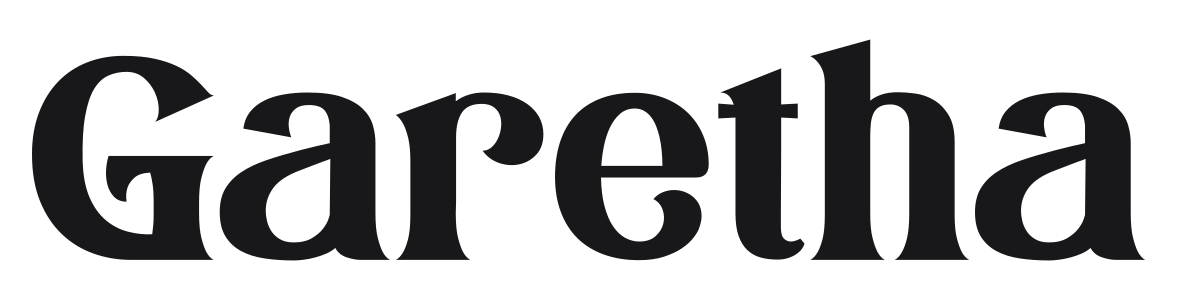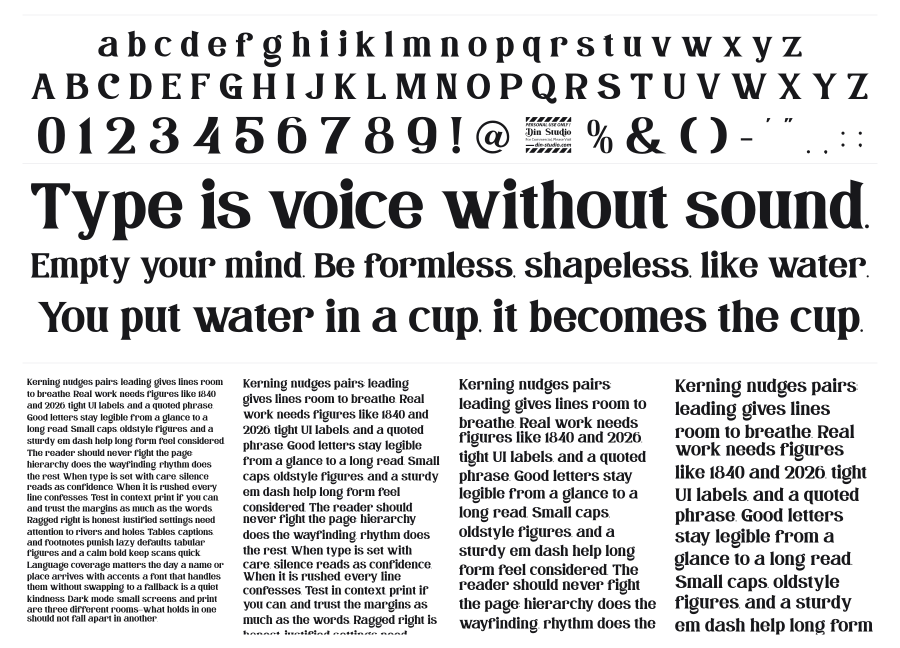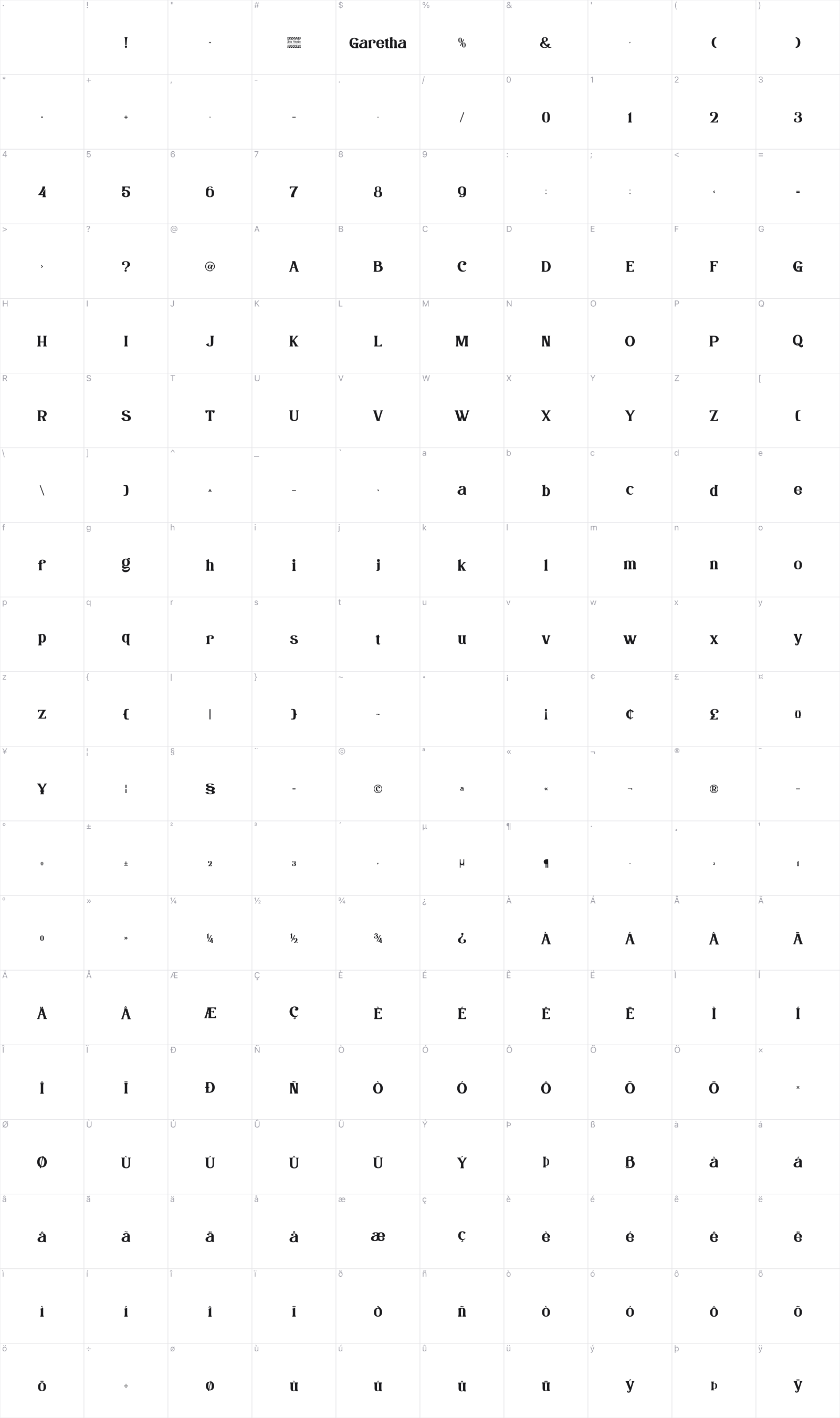
Garetha
Garetha is a bold modern serif with dramatic Didone-style stroke contrast and wide, confident proportions. Ball terminals on key characters give it a distinctive stylish quality that lifts it above a standard display serif. Built for branding, editorial work, and occasions where elegance and weight need to coexist.